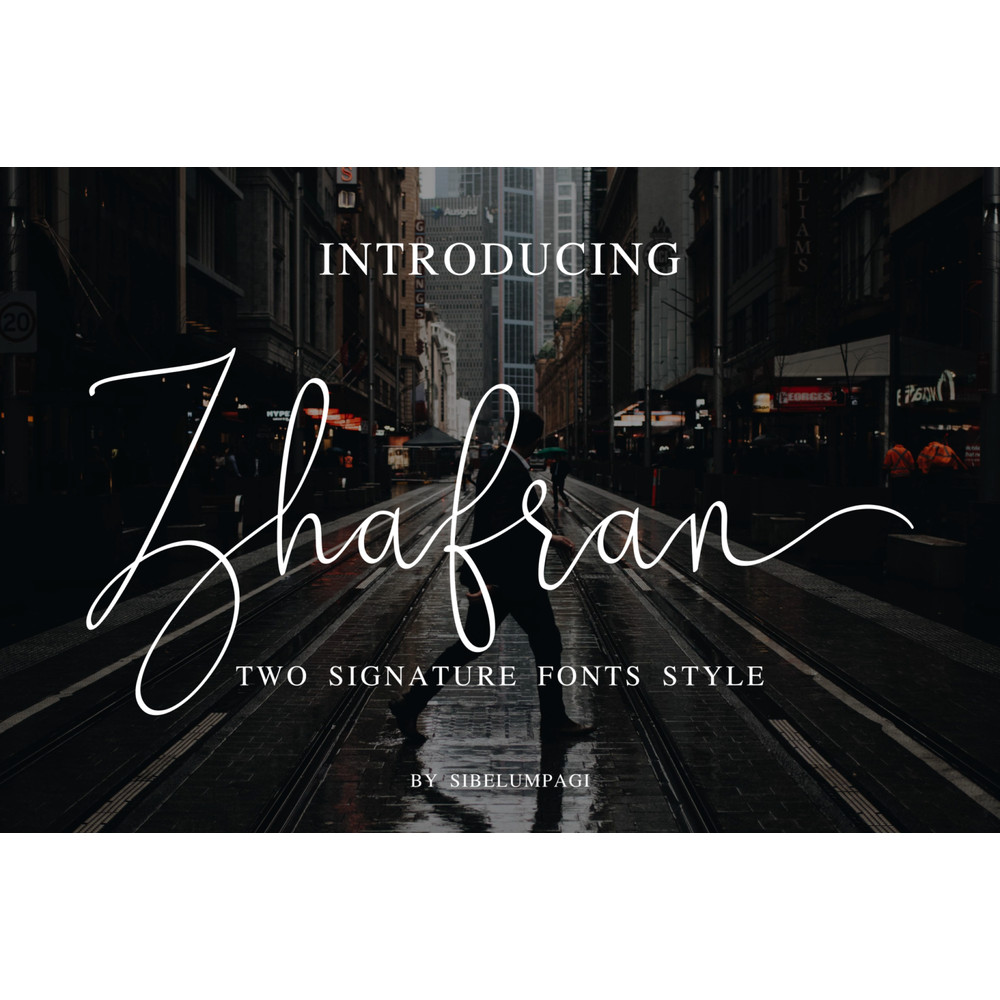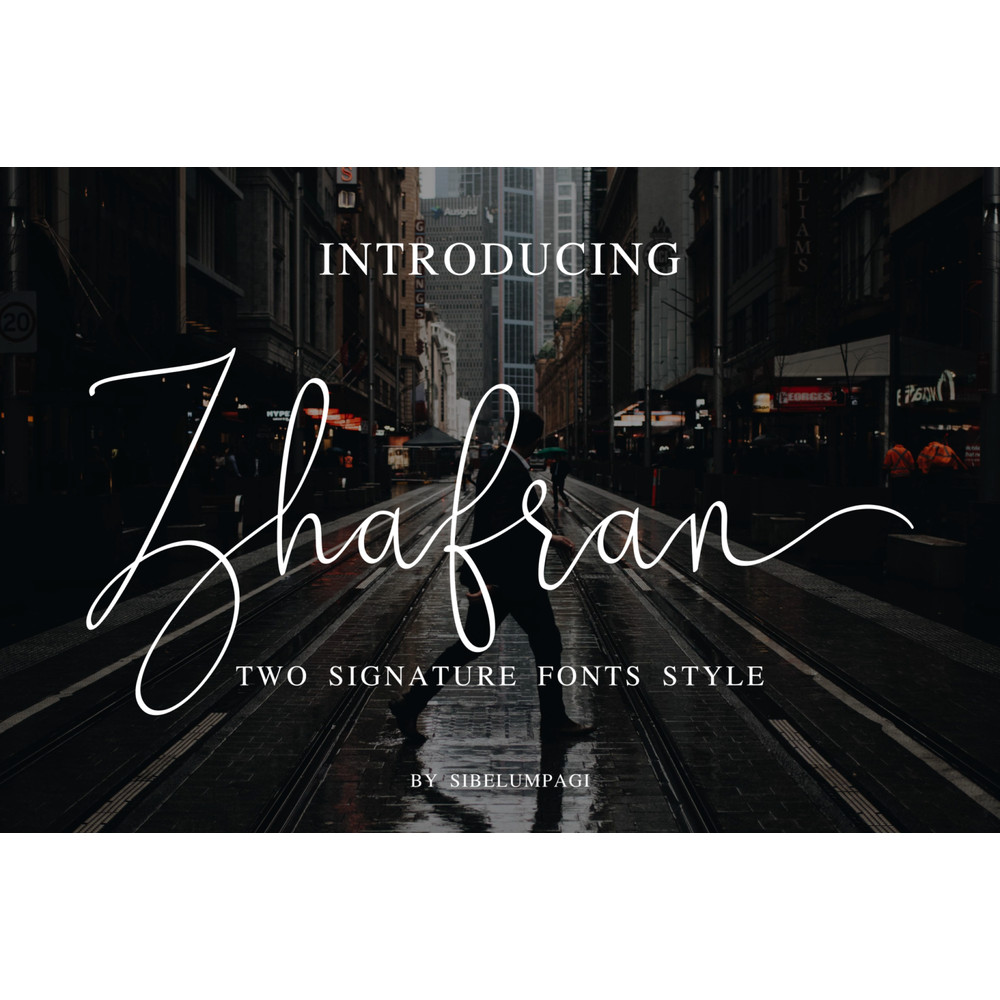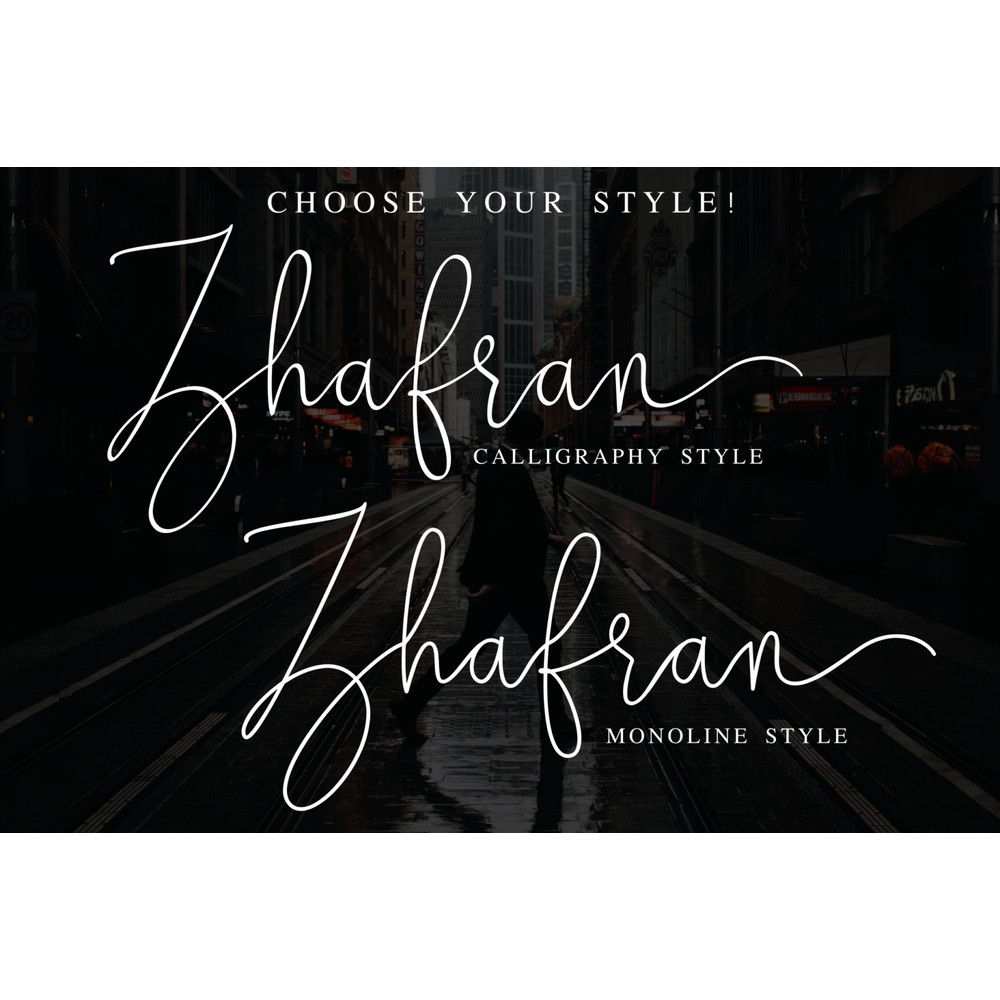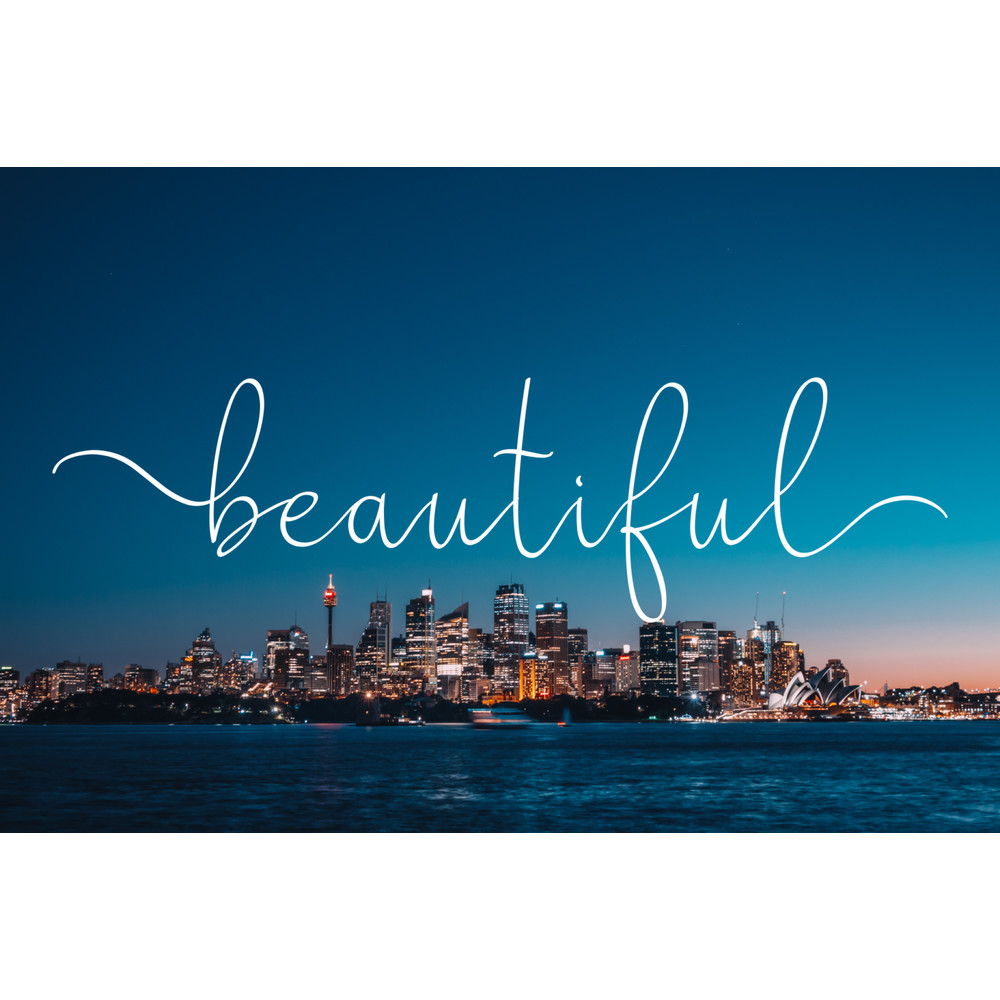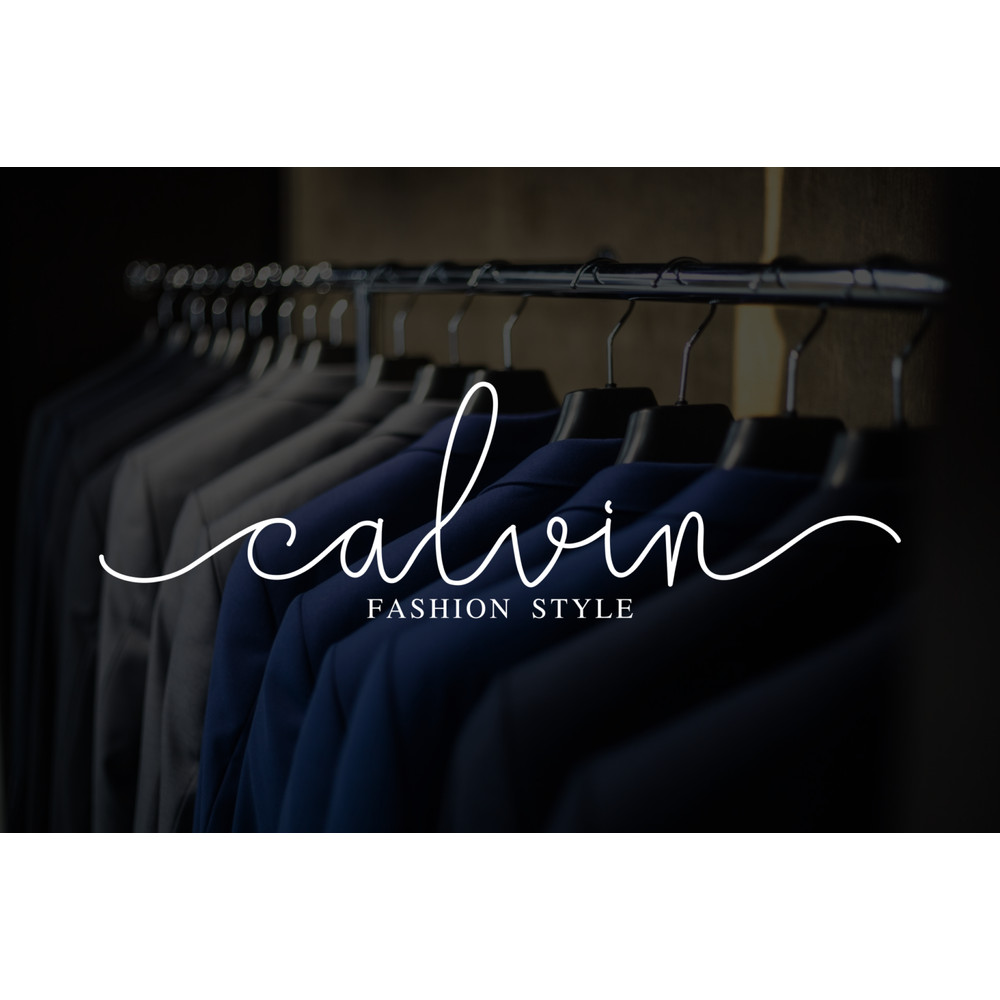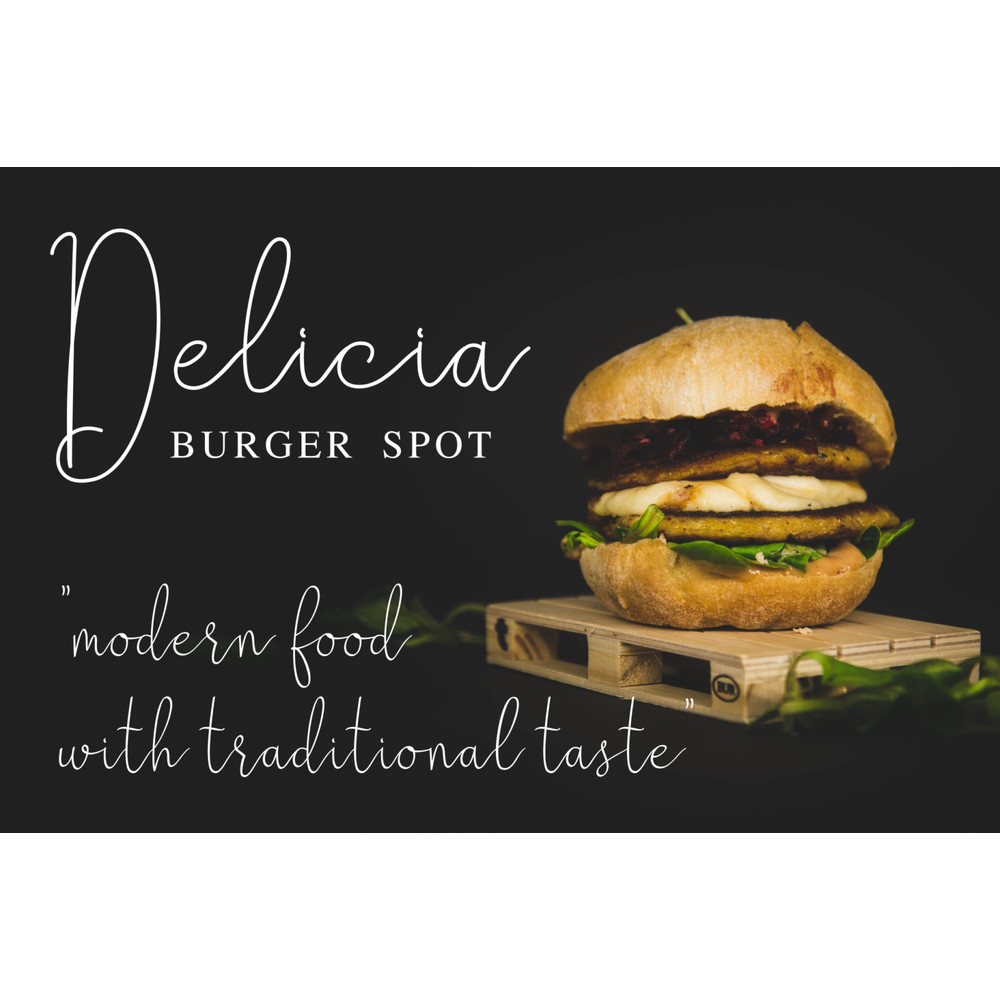
Zhafran is an elegant signature font with two styles, calligraphy and monoline. It’s perfect for logos, unique branding, photo overlays, signatures, and much more.
Multilingual support
Beginning and ending swashes